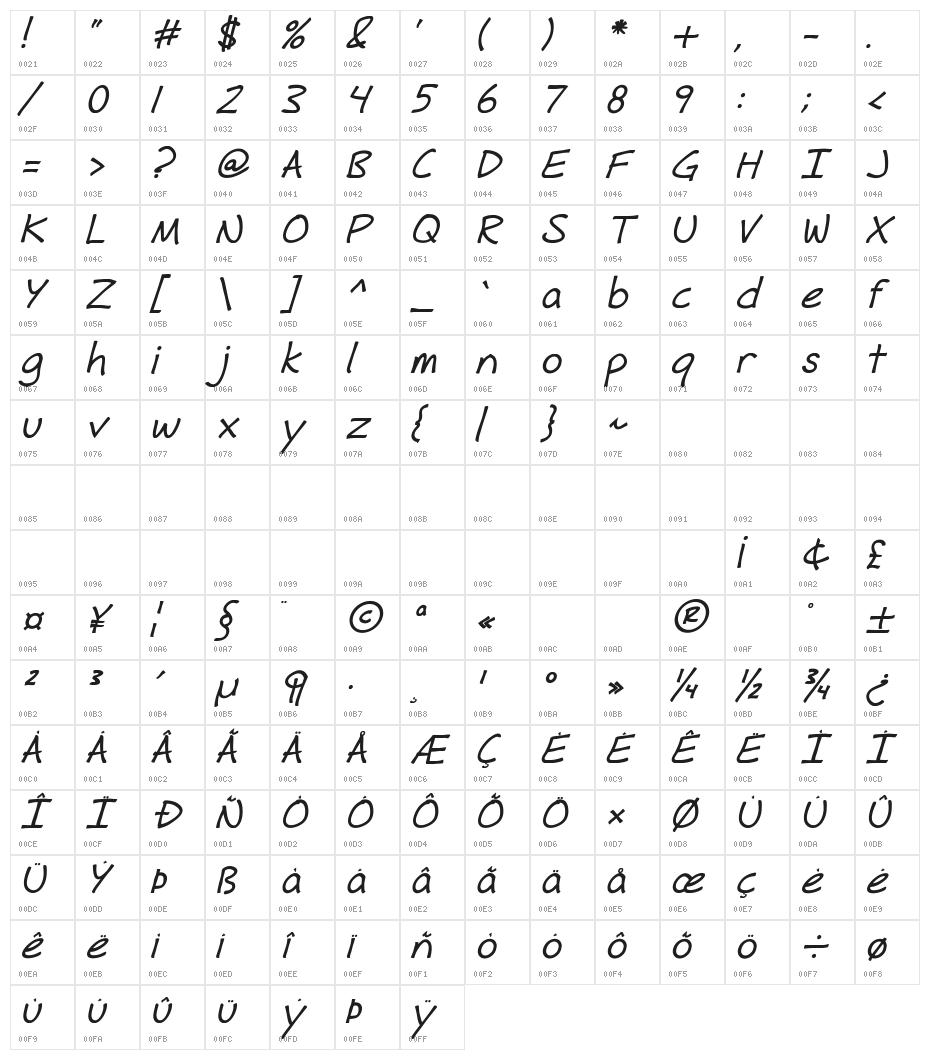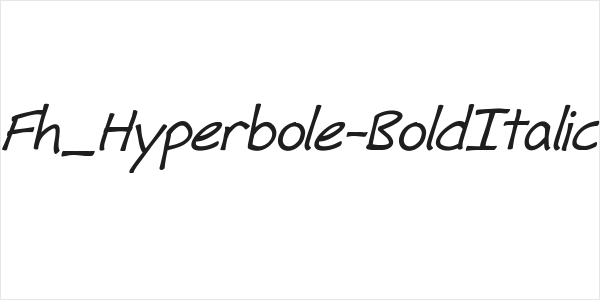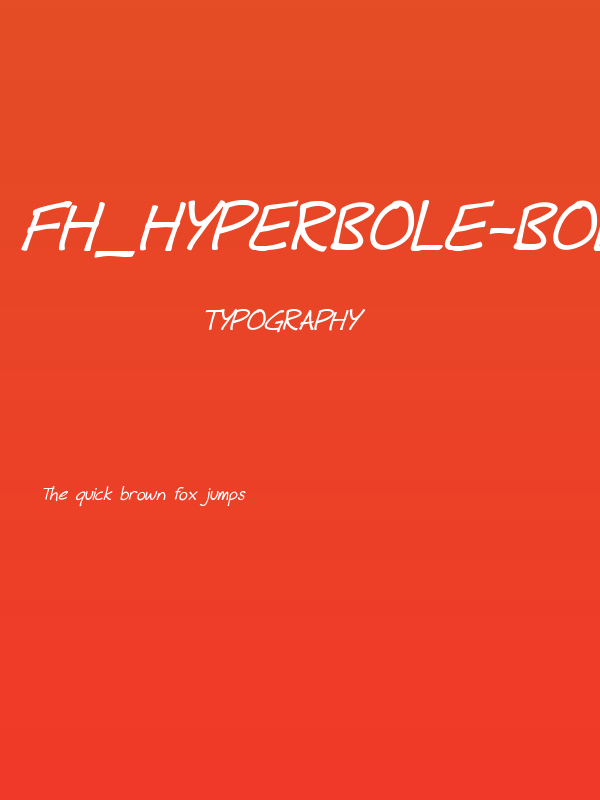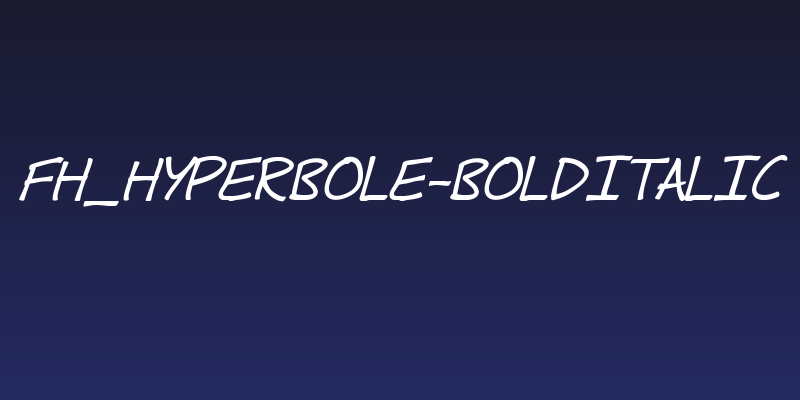
Fh_Hyperbole-BoldItalic Font
Fh_Hyperbole-BoldItalic Description
This font exhibits a playful and dynamic handwritten style, characterized by its bold and italicized form. The letters are slightly slanted, giving a sense of motion and energy. The strokes are thick and consistent, providing a strong visual impact. The uppercase and lowercase letters maintain a cohesive look, with rounded edges and smooth curves. Numbers and special characters are designed to match the overall aesthetic, ensuring uniformity across all elements. This font's informal yet bold appearance makes it suitable for creative and expressive projects.
| Proposed Projects | Ideal for creative projects such as greeting cards, posters, and social media graphics where a personal and energetic touch is desired. |